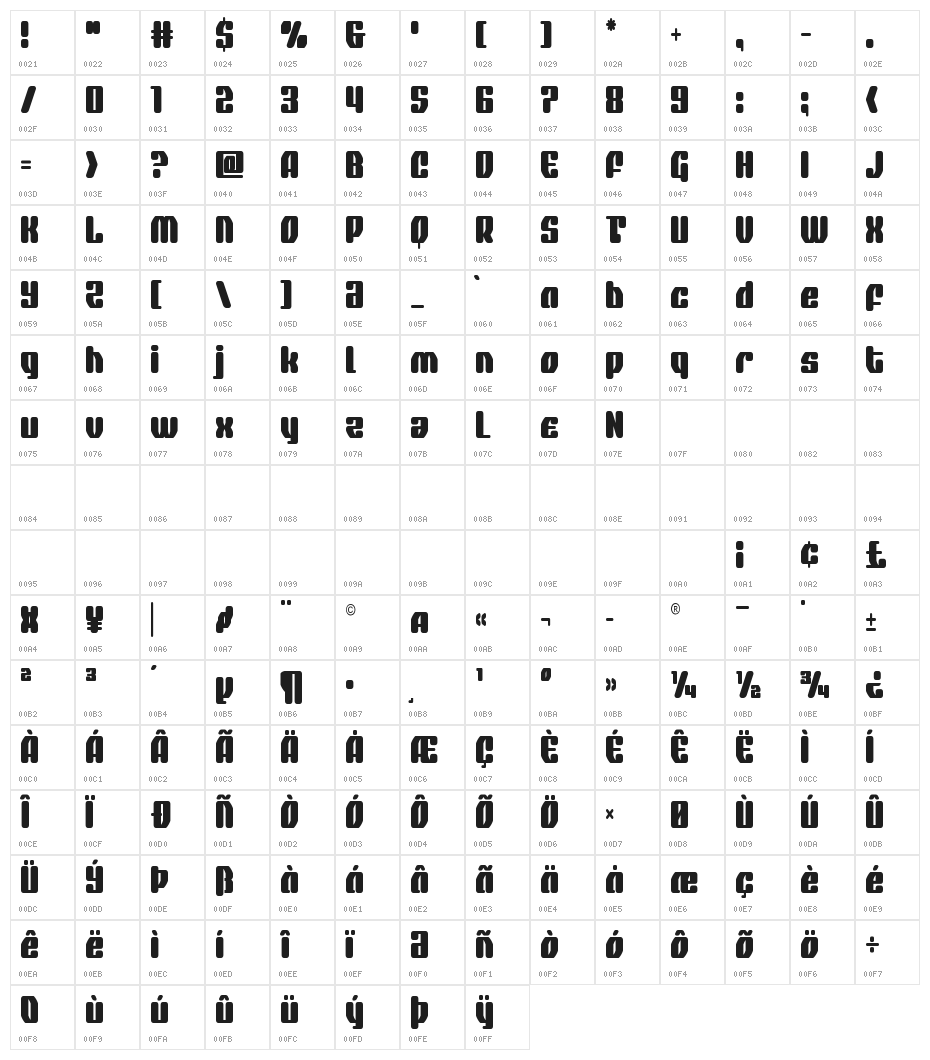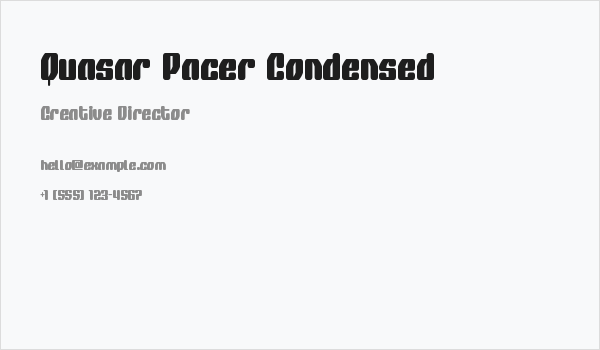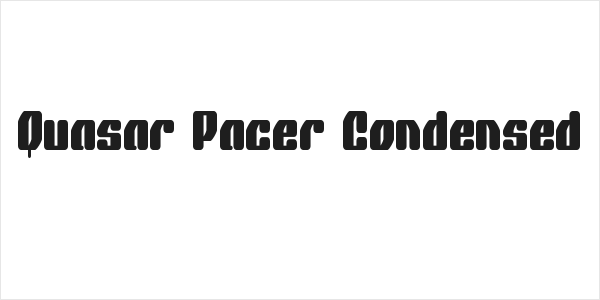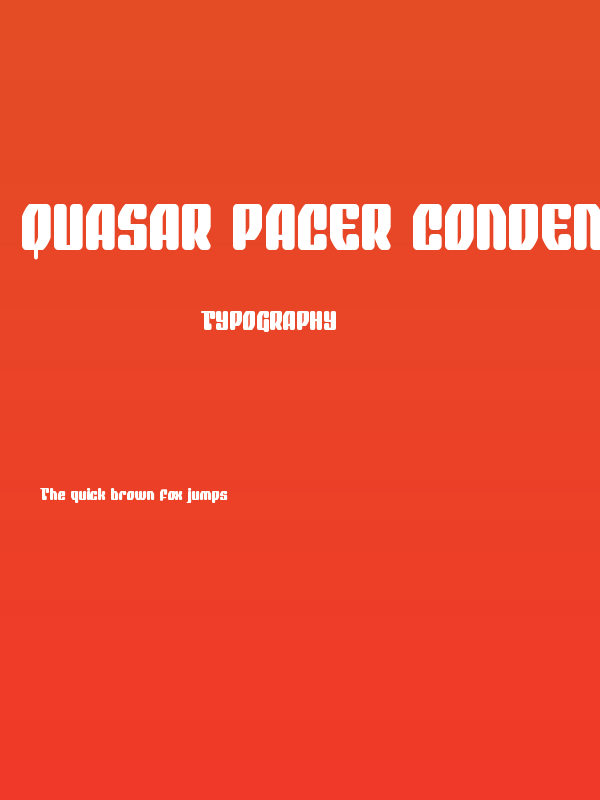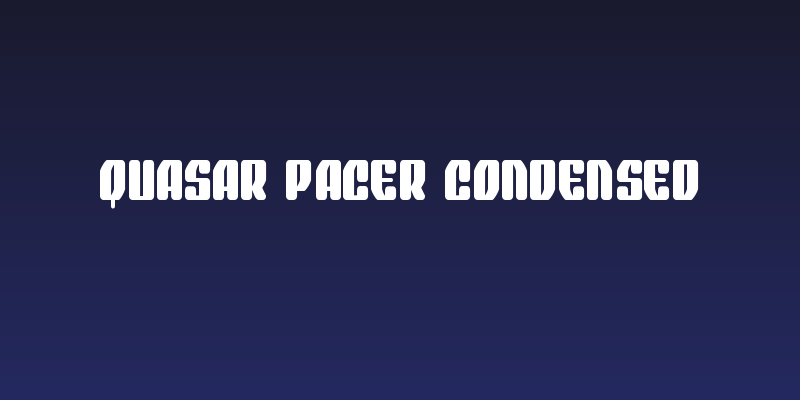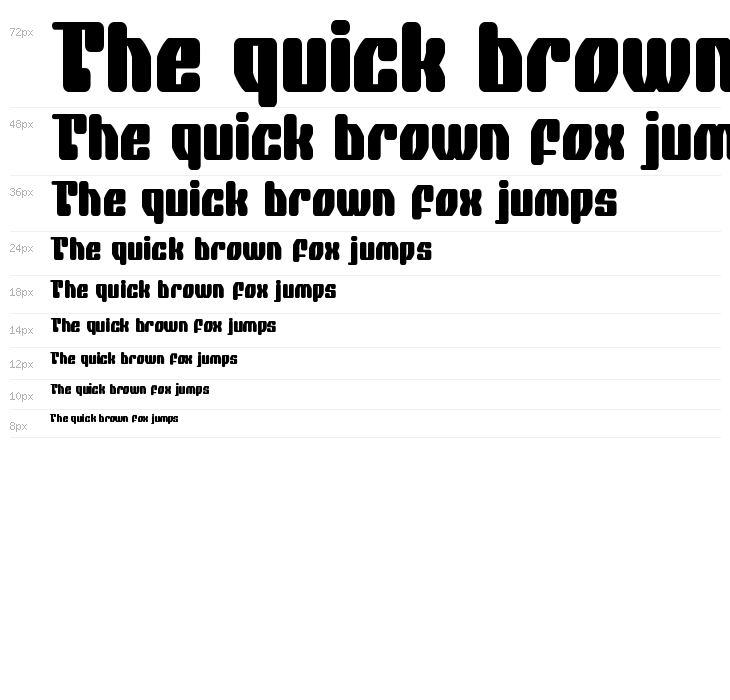
Quasar Pacer Condensed Font
Quasar Pacer Condensed Description
This font features a bold, condensed style with a modern and geometric appearance. The characters have a strong presence, with thick strokes and minimal contrast, creating a uniform and cohesive look. The uppercase and lowercase letters maintain a consistent width, contributing to the condensed nature of the font. The numerals and special characters are designed to match the boldness and style of the alphabet, ensuring a harmonious overall appearance. This font is suitable for projects that require a striking and impactful visual element.
| Proposed Projects | Ideal for headlines, posters, branding, and any design requiring a strong visual impact. |